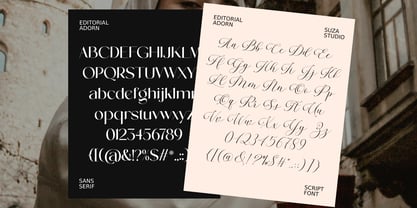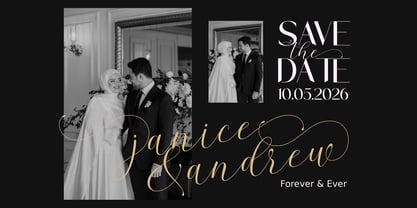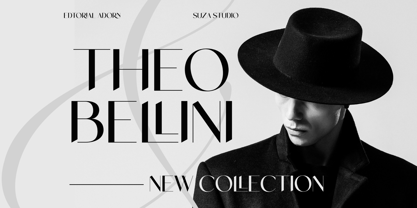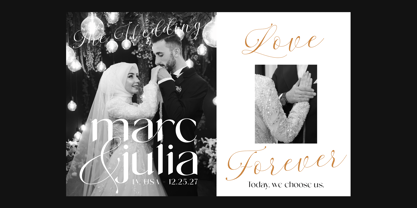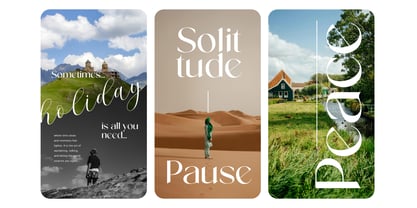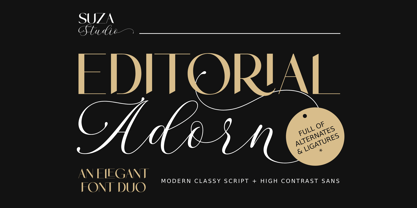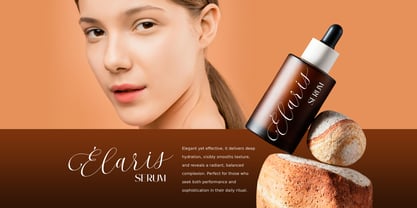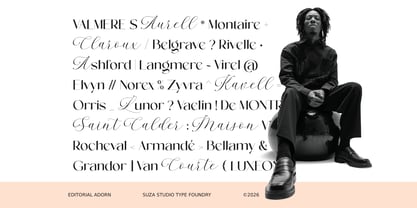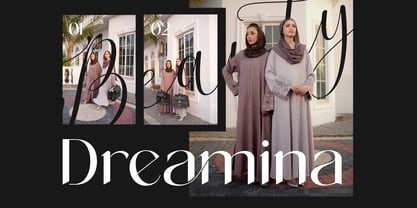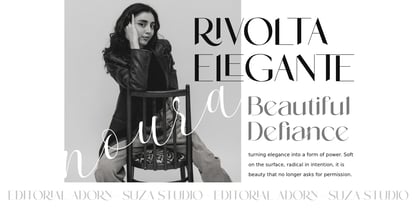
Editorial Adorn
by Suza Studio
The Editorial Adorn Font Family was designed by Zikrillah and published by Suza Studio. Editorial Adorn contains 2 styles and family package options. More about this family
Editorial Adorn is a captivating blend of script and sans serif fonts, exuding a timeless atmosphere and nostalgic charm that enhances every design. This unique blend brings a touch of sophistication to any project, making it an ideal choice for branding, editorial layouts, and social media visuals. With its versatile aesthetic, Editorial Adorn enriches your design toolkit, offering endless creative possibilities for refined and stunning results. The Perfect Font Combination: Complete Punctuation & Symbols: Everything you need is here punctuation, numbers, and special characters. Extensive Language Support: English, Italian, French, Spanish, German, Portuguese, Dutch, Danish, Norwegian, and Swedish. PUA-Encoded Characters Fully accessible without additional design software. This font supports ligatures, alternates, and is multilingual.
Editorial Adorn